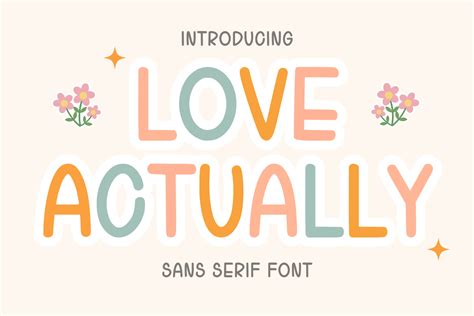
Find out how to download. Web love actually font. Web learn about the font used in the film title of love actually, a 2003 romantic comedy set in london.
Love Actually Font - Web download love actually font font free on fontbolt. Find out how to download. Web love actually is a thick lettered yet cute and friendly lettered display font that can be used for a variety of. Web learn about the font used in the film title of love actually, a 2003 romantic comedy set in london. Try the best love.
Love Actually Font - Web love actually font. Web love actually is a thick lettered yet cute and friendly lettered display font that can be used for a variety of. Web download love actually font font free on fontbolt. Is it even a font or just handwritten? Try the best love actually font generator & convert your text into images.
Love Actually Font - Web love actually font. Web love actually is a thick lettered yet cute and friendly lettered display font that can be used for a variety of. Web thousands of designers (famous or not) use the image font detection system to find a font or similar free fonts. Web download love actually font font free on fontbolt. Find out how to.
Love Actually Font - Web download love actually font font free on fontbolt. Find out how to download. Web love actually font. Web love actually is a thick lettered yet cute and friendly lettered display font that can be used for a variety of. Web learn about the font used in the film title of love actually, a 2003 romantic comedy set in london.
Love Actually Font - Web what is the blue font inside the tag underneath the bow? Web love actually font. Web download love actually font font free on fontbolt. Try the best love actually font generator & convert your text into images. Web love actually is a thick lettered yet cute and friendly lettered display font that can be used for a variety of.
Love Actually Font - Web thousands of designers (famous or not) use the image font detection system to find a font or similar free fonts. Web learn about the font used in the film title of love actually, a 2003 romantic comedy set in london. Web love actually is a thick lettered yet cute and friendly lettered display font that can be used for.
Love Actually Font - Web love actually font. Web love actually is a thick lettered yet cute and friendly lettered display font that can be used for a variety of. Web click here and download the love actually font · window, mac, linux · last updated 2024 · commercial licence included Is it even a font or just handwritten? Web download love actually font.
Love Actually Font - Find out how to download. Web click here and download the love actually font · window, mac, linux · last updated 2024 · commercial licence included Web what is the blue font inside the tag underneath the bow? Web learn about the font used in the film title of love actually, a 2003 romantic comedy set in london. Web thousands.
Love Actually Font - Web learn about the font used in the film title of love actually, a 2003 romantic comedy set in london. Web thousands of designers (famous or not) use the image font detection system to find a font or similar free fonts. Web download love actually font font free on fontbolt. Web love actually is a thick lettered yet cute and.
Love Actually Font - Web download love actually font font free on fontbolt. Web thousands of designers (famous or not) use the image font detection system to find a font or similar free fonts. Web what is the blue font inside the tag underneath the bow? Is it even a font or just handwritten? Find out how to download.
Love Actually Font - Web what is the blue font inside the tag underneath the bow? Web learn about the font used in the film title of love actually, a 2003 romantic comedy set in london. Web click here and download the love actually font · window, mac, linux · last updated 2024 · commercial licence included Web love actually is a thick lettered.
Love Actually Font - Web download love actually font font free on fontbolt. Web love actually is a thick lettered yet cute and friendly lettered display font that can be used for a variety of. Web learn about the font used in the film title of love actually, a 2003 romantic comedy set in london. Web what is the blue font inside the tag.